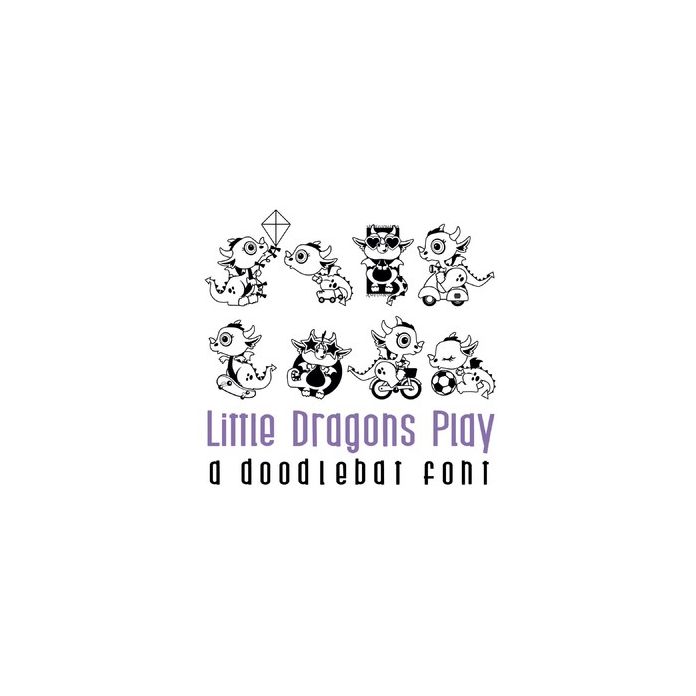
This fun doodlebat font features 26 dragons living their best life. Perfect for cards, gifts, decor, crafts, scrap book pages, planner stickers and more!